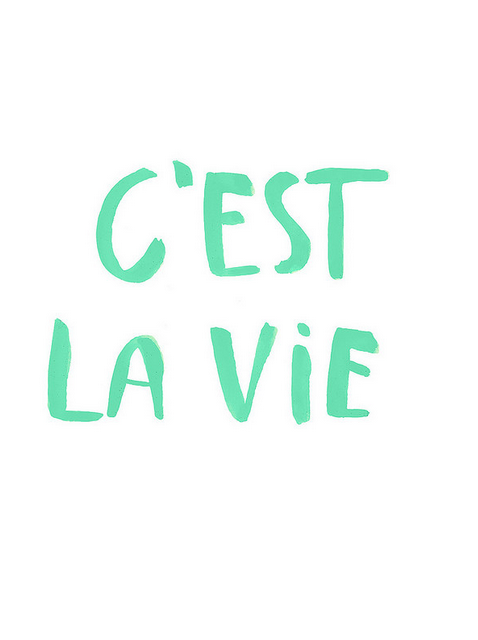
Illustration Crush: Daniela Dahf Henríquez
I discovered Daniela on Pinterest (of course) she is an illustrator based in Chile. I can't find much else about her! Feast your eyes on her incredible drawings - I love her sketchy style pencil style, and also her beautiful lettering!